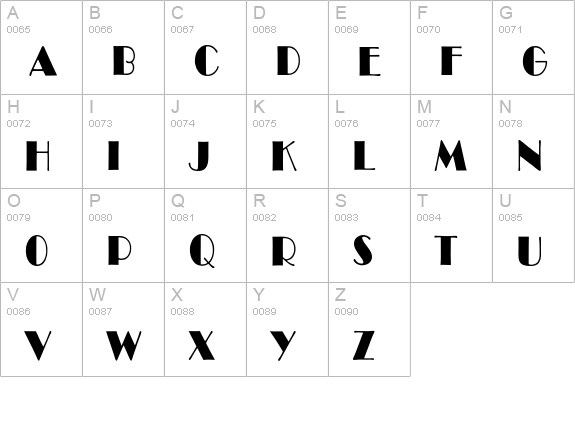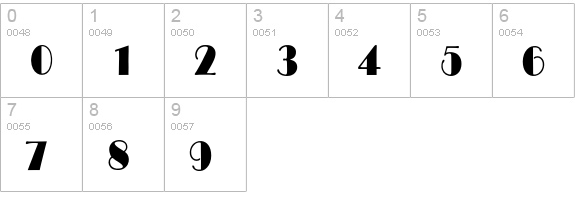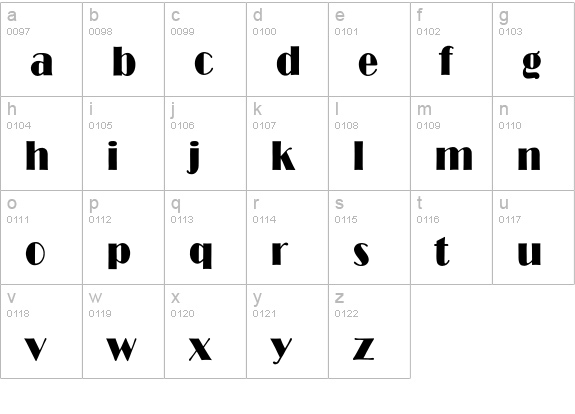
BroadwayCondensed Font Details
BroadwayCondensed font is a stylish and versatile typeface that exudes a sense of sophistication and elegance. Its condensed design makes it perfect for creating eye-catching headlines, titles, and signage that demand attention. With its bold and distinctive letterforms, BroadwayCondensed adds a touch of drama to any project. The best part? BroadwayCondensed is completely free to download at FontsMarket.com. This means you can enhance your designs with this exceptional font without breaking the bank. Whether you're working on a poster, logo, or website, BroadwayCondensed is sure to make a lasting impression. Download it today and elevate your typography game to new heights!